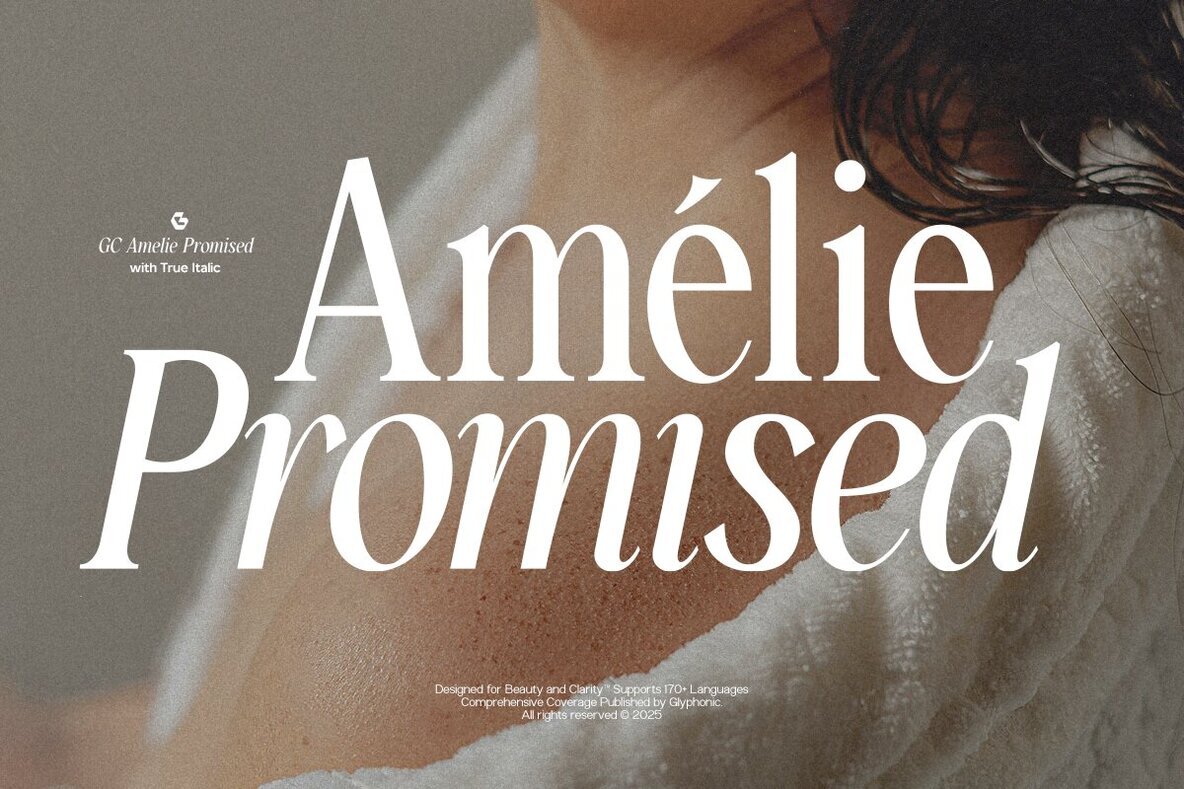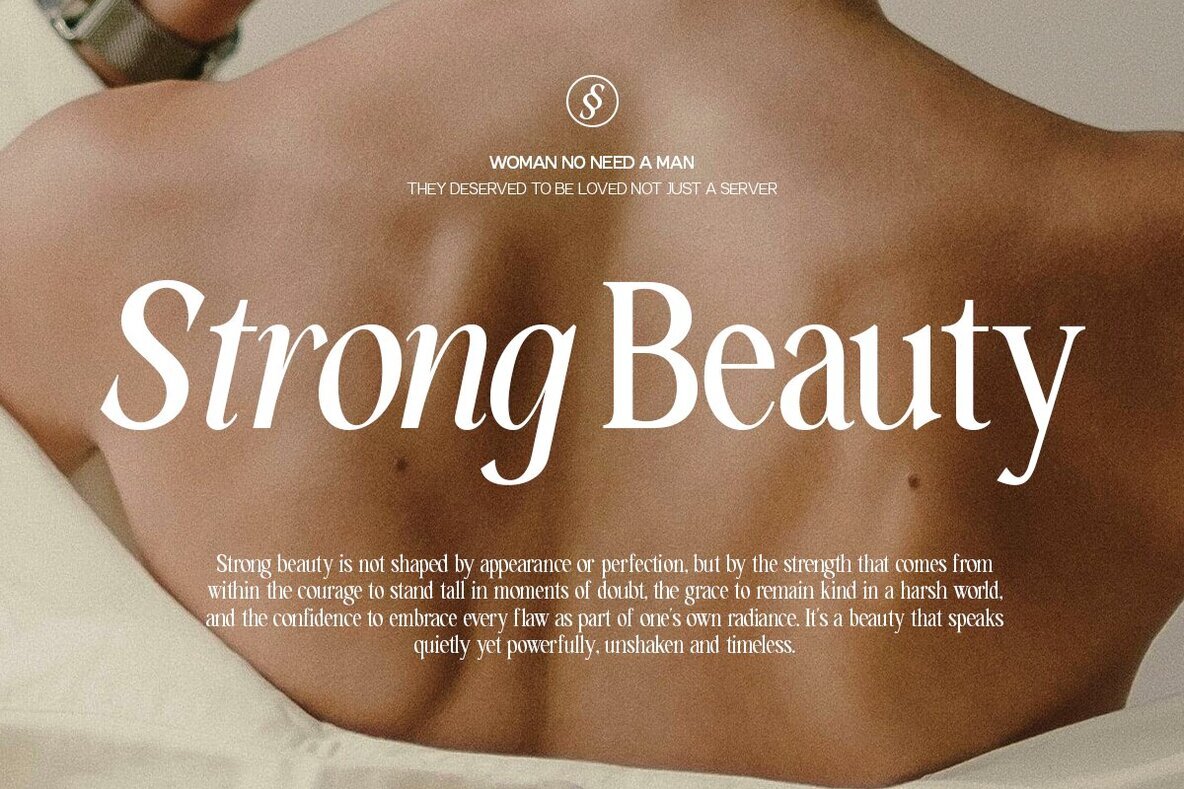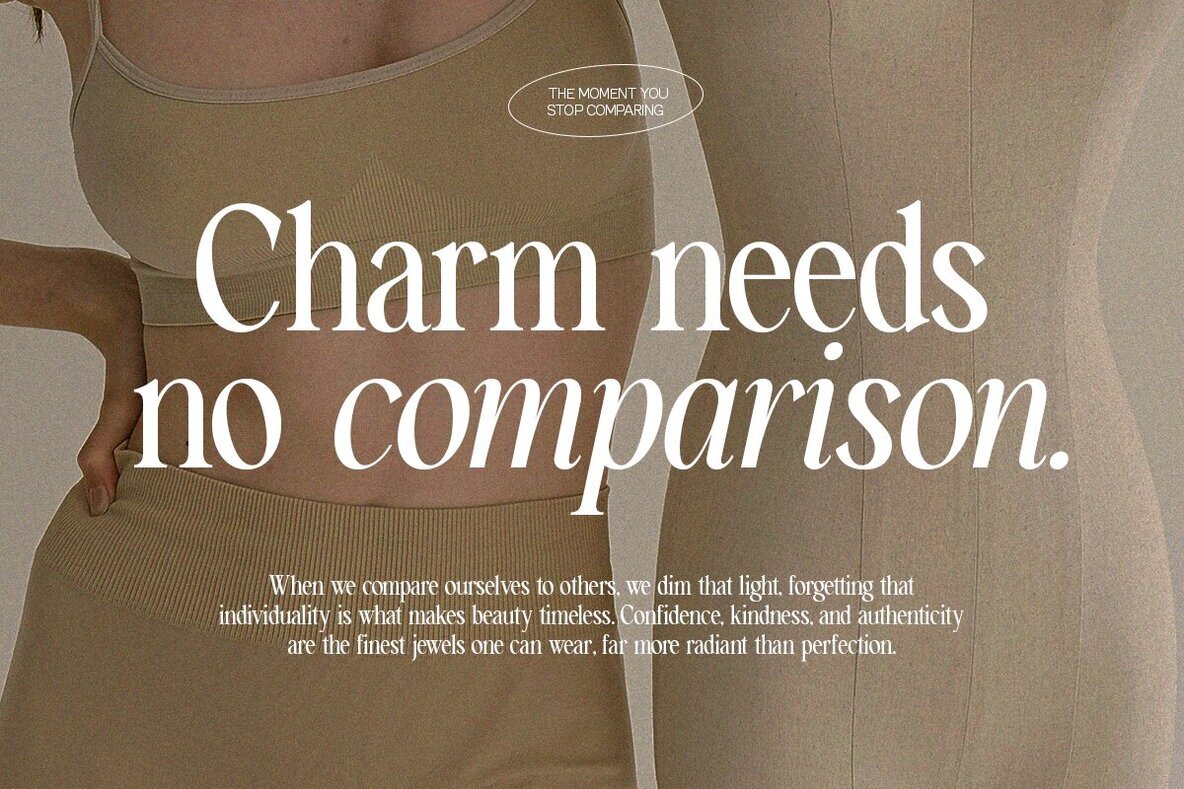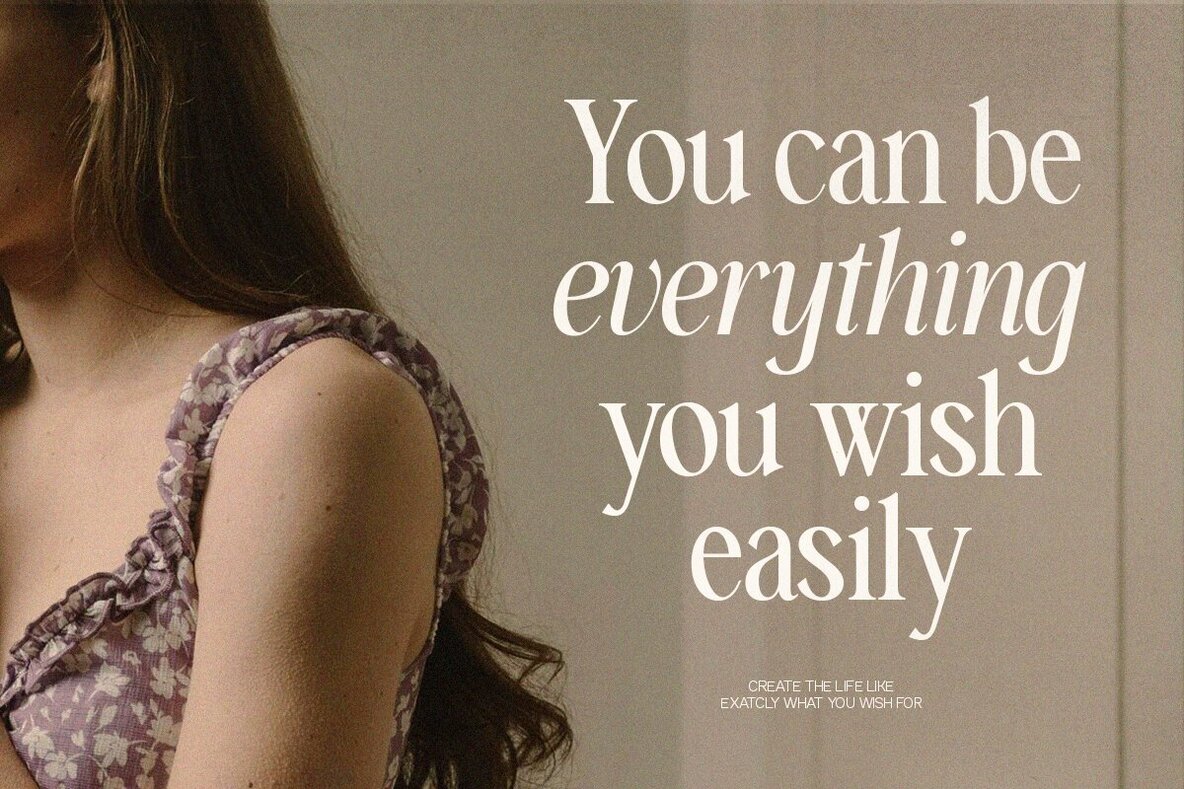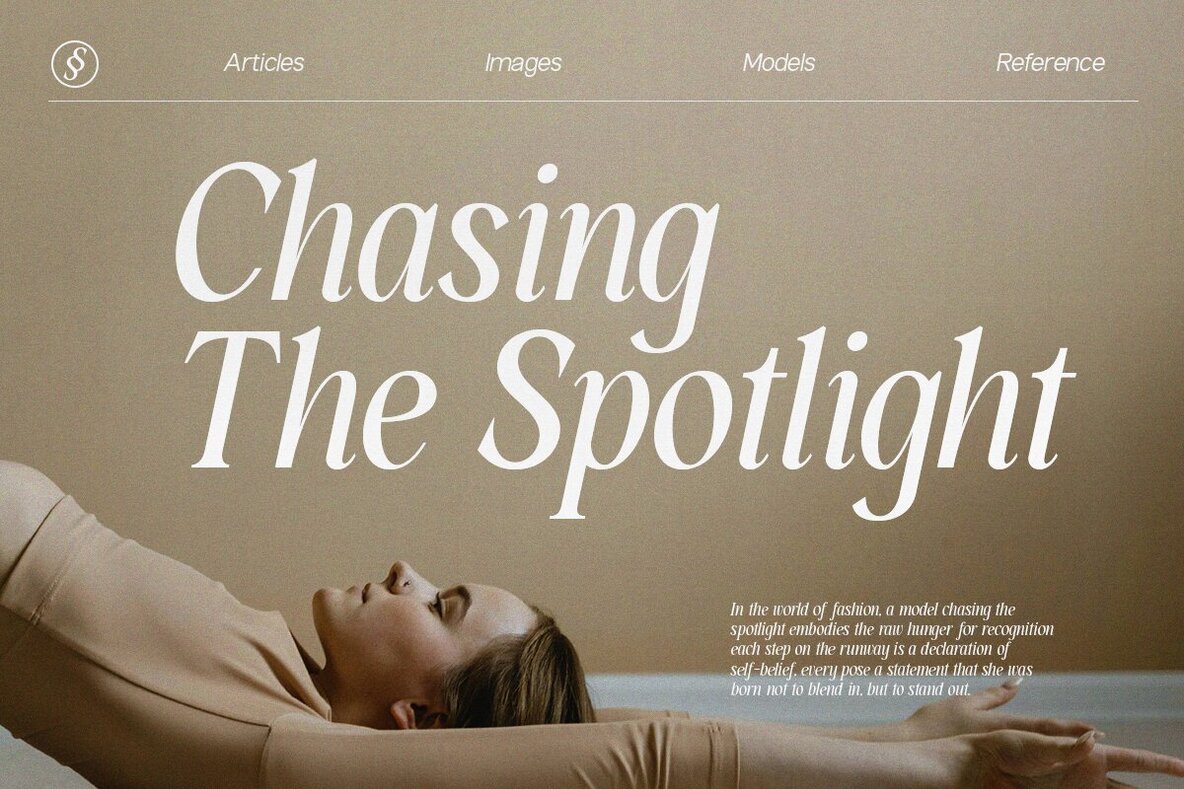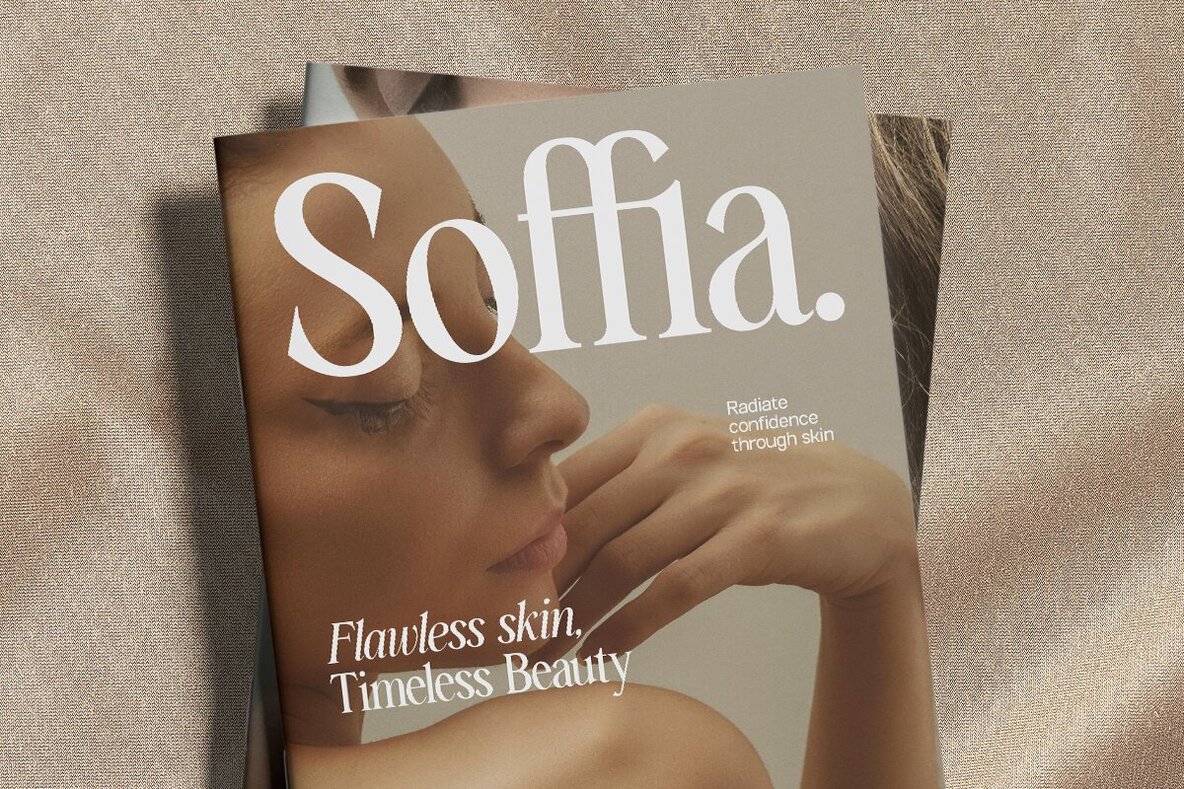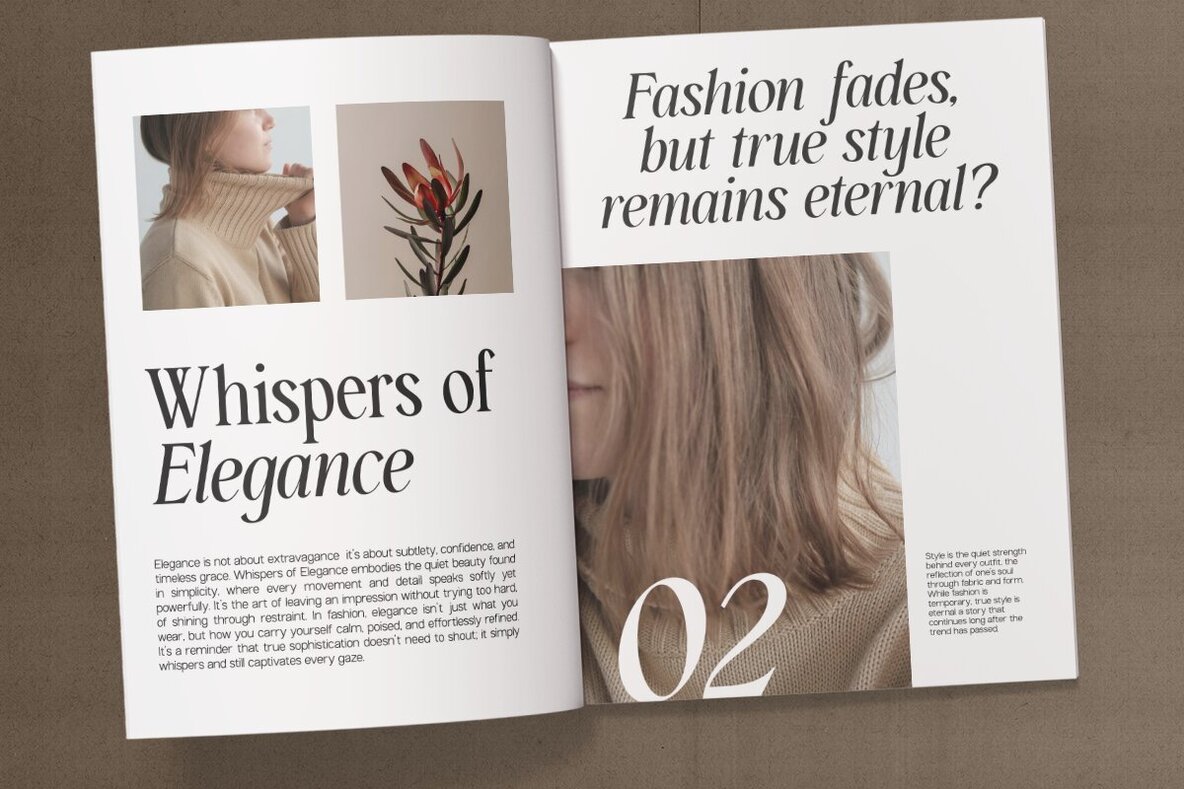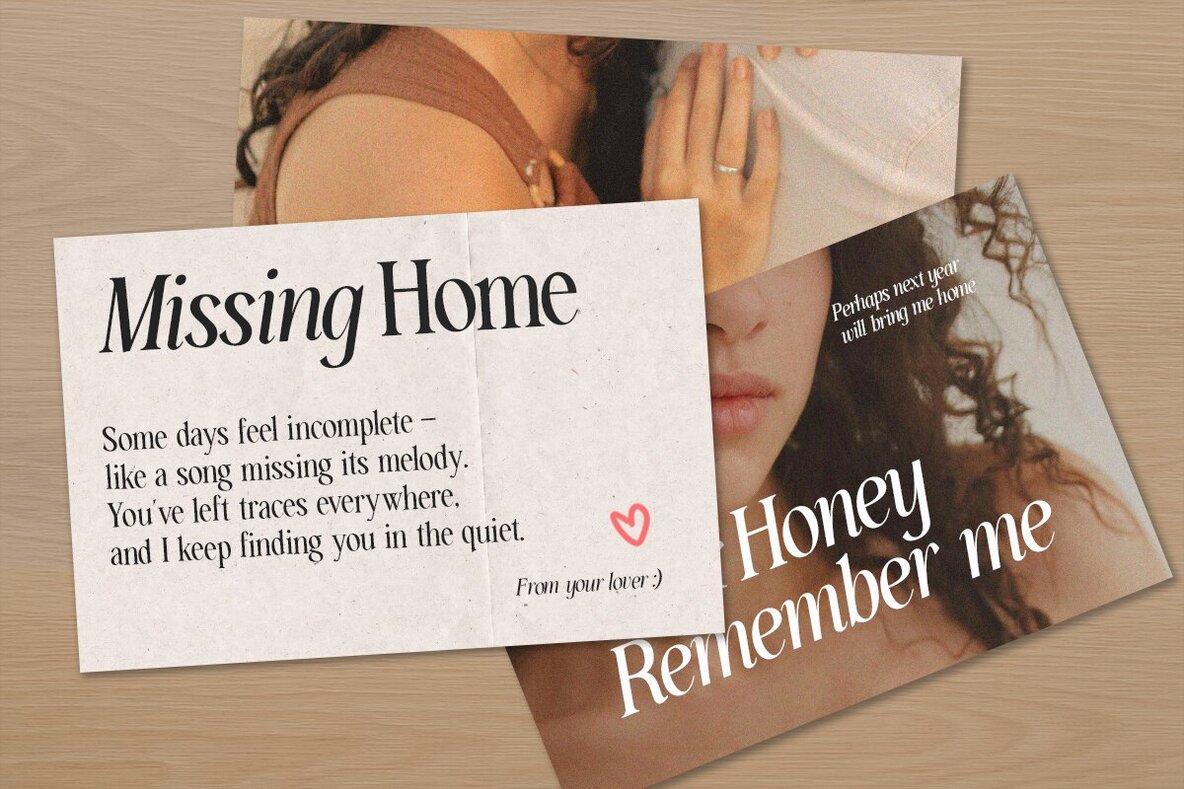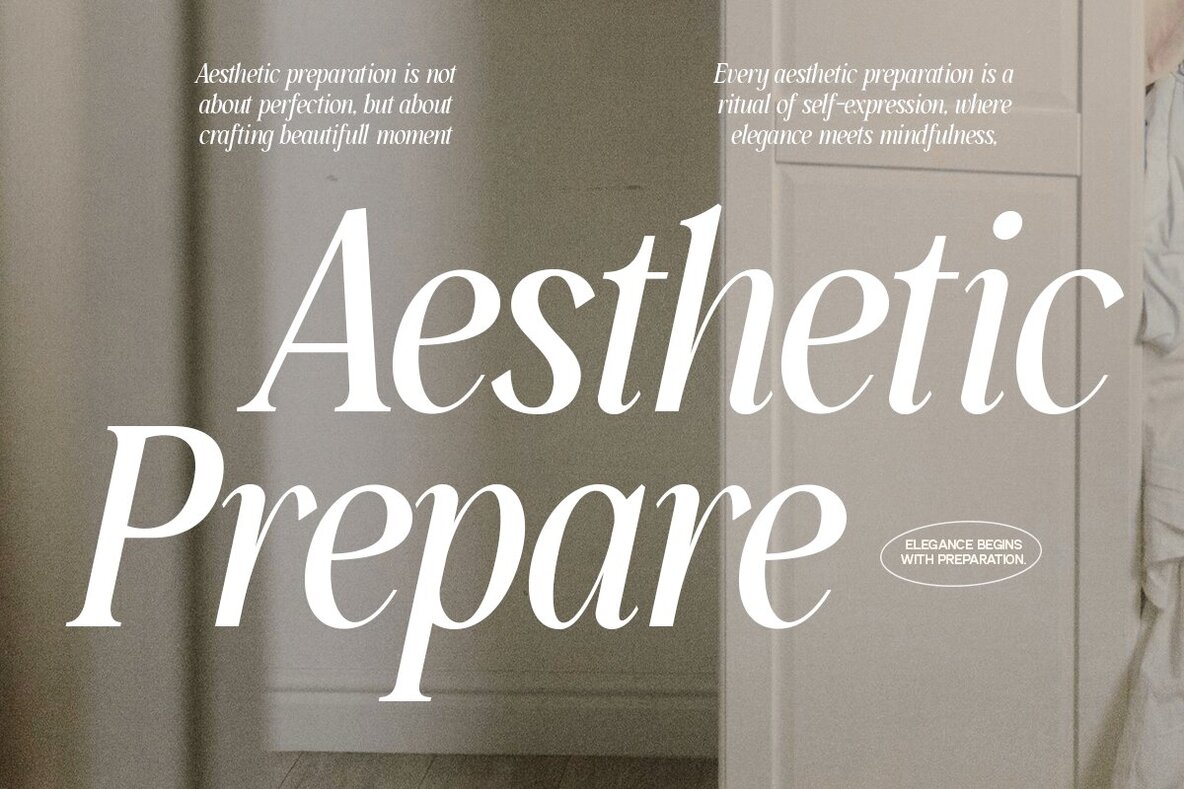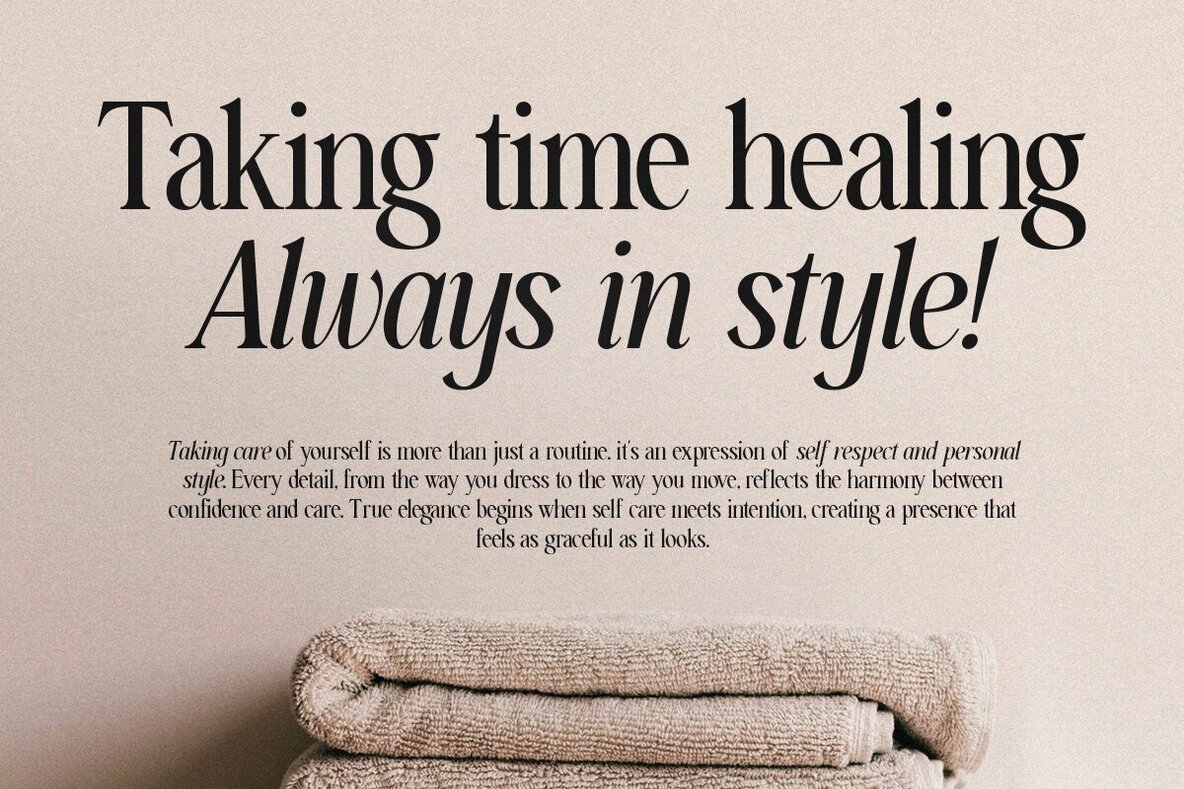
GC Amelie Promised Font
GC Amelie Promised Regular
GC Amelie Promised Italic
GC Amelie Promised is a refined italic serif typeface that balances grace with timeless sophistication. Its elegant curves and high-contrast strokes convey both romance and modernity, making it ideal for fashion branding, beauty packaging, and elegant logotypes. Designed with femininity and confidence in mind, the balanced letterforms and true italic detailing of GC Amelie Promised infuse depth and allure into your typography. This typeface is versatile enough for magazine titles, perfume branding, and minimalist posters, offering an aesthetic that feels both classic and contemporary. Features: Invite contemporary elegance and emotion into your designs with GC Amelie Promised.GC Amelie Promised: Elegant Italic Serif Typeface